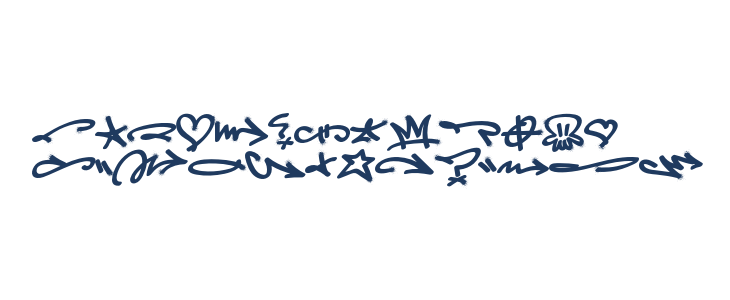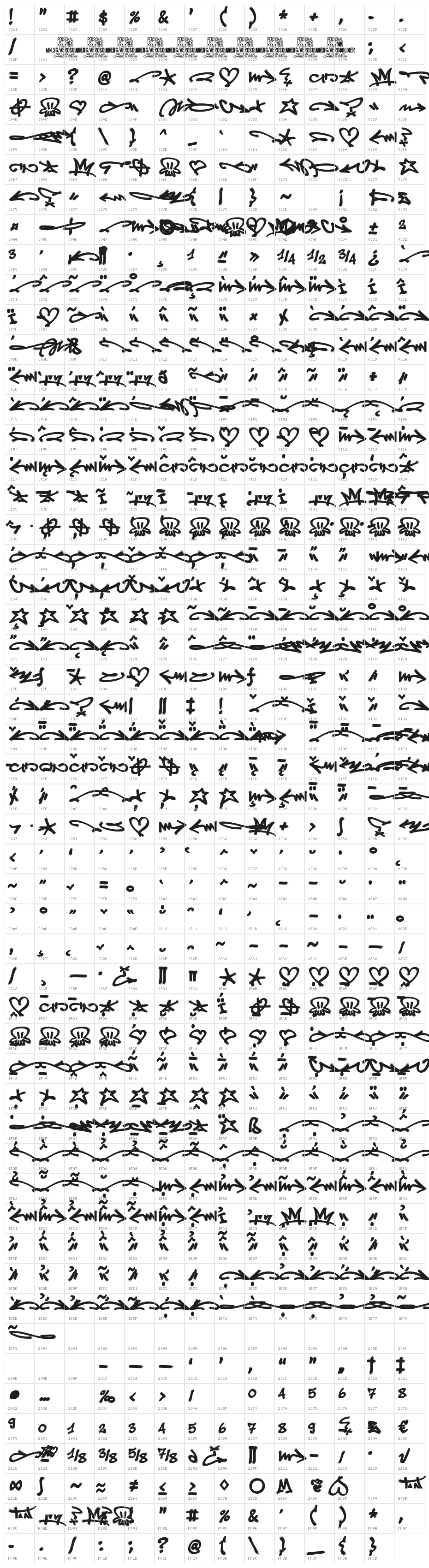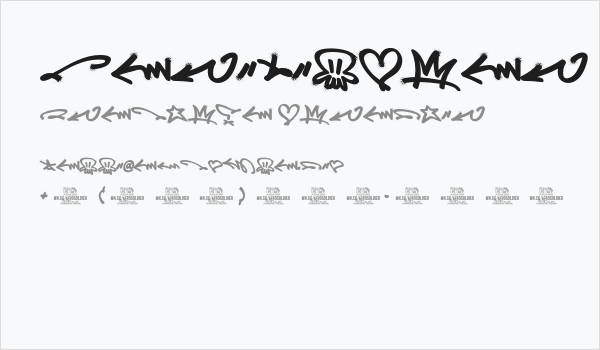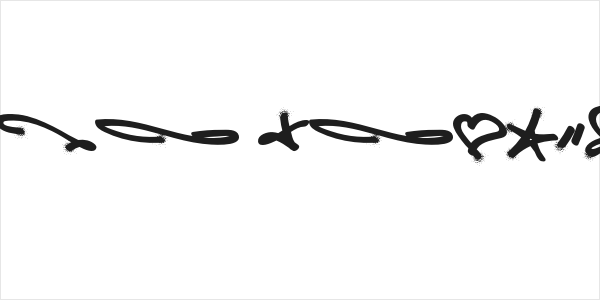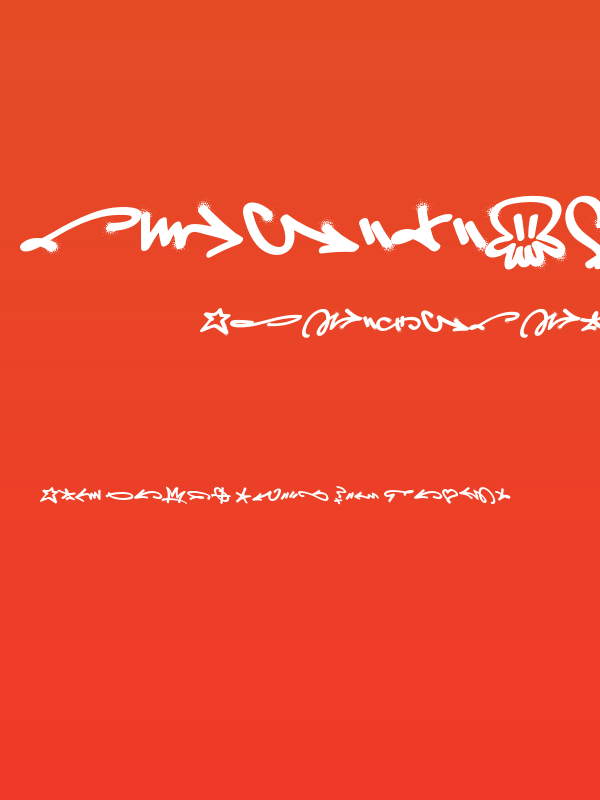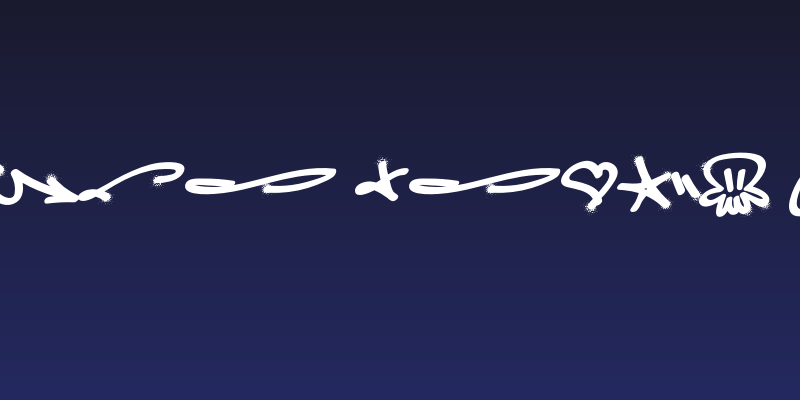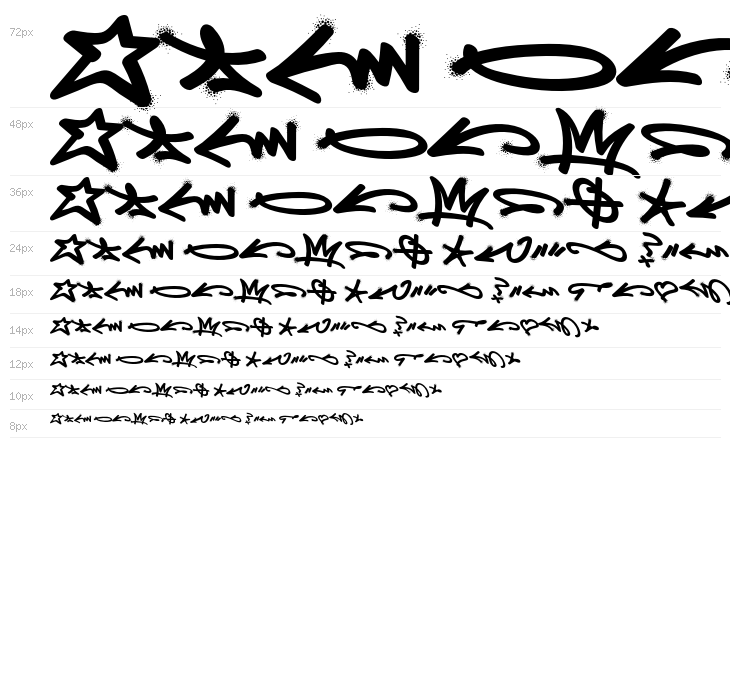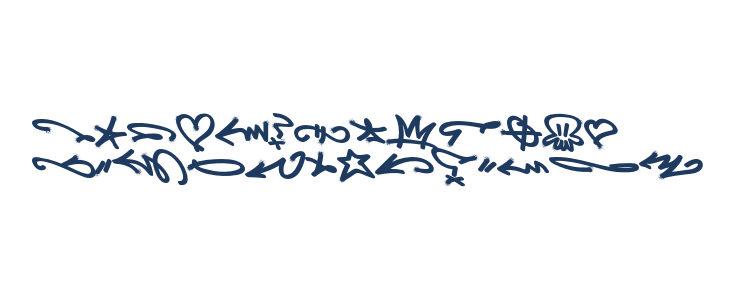
Aerosoldier Spray Symbol PERS Regular Font
Aerosoldier Spray Symbol PERS Regular Description
A decorative spray-paint inspired symbol font with bold, graffiti-like strokes and playful, urban motifs such as arrows, hearts, stars, and abstract shapes. The characters have a hand-drawn, expressive quality with visible paint splatter effects.
| Overall Style | Decorative, Urban, Graffiti |
| Use Case | Logos, Posters, Headlines, Decorative elements |
| Proposed Projects | Street art posters, urban branding, event flyers, music album covers, youth-oriented designs. |